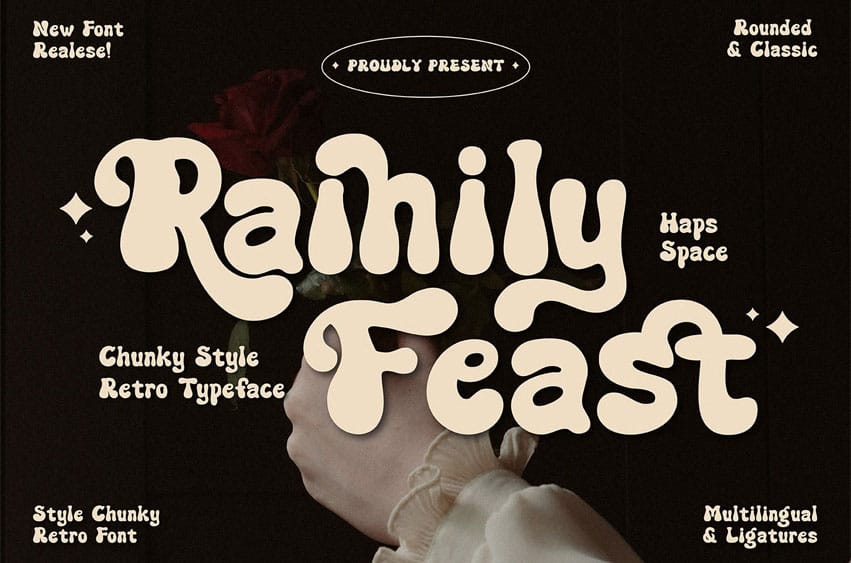
Rainily Feast Font Chunky Retro | Step into a world of warm nostalgia and playful elegance with Rainily Feast, a chunky-style retro font that blends classic curves with modern charm. With its soft, rounded edges and whimsical letterforms, this typeface adds a touch of personality and emotion to any design.
- Unique Letterforms